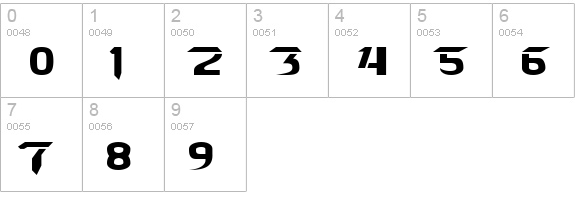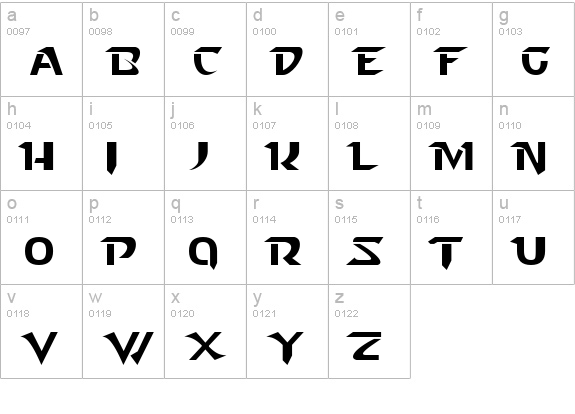
Starcraft Normal Font Details
Starcraft Normal is the standard, neutral variant in the Starcraft typeface family \xE2\x80\x94 well suited to general body text, paragraphs, and standard typographic work.
Starcraft Normal font is a visually stunning typeface that captures the essence of the epic Starcraft universe. With its sleek and futuristic design, this font brings to life the thrilling battles between the Terrans, Protoss, and Zerg. Featuring clean lines and sharp edges, Starcraft Normal font exudes a sense of power and authority. It is perfect for creating eye-catching headlines, captivating logo designs, and exciting gaming graphics. This versatile font can be used in a wide range of projects, from gaming websites and promotional materials to posters and merchandise. What makes Starcraft Normal font even more appealing is that it is freely available to download at FontsMarket.com. This means that you can easily add this remarkable font to your collection without any cost. Whether you are a seasoned designer or an avid fan of the Starcraft franchise, this font is a must-have for your creative arsenal. Download Starcraft Normal font today and embark on a journey of creativity and imagination. Let your designs soar to new heights with the captivating power of the Starcraft universe. Get ready to conquer the digital realm with this amazing font, now easily accessible at FontsMarket.com.